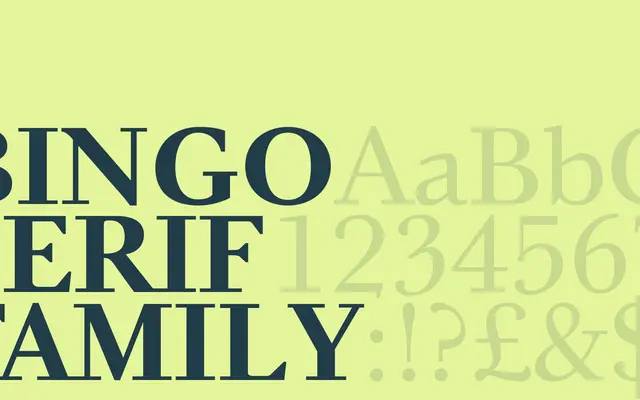
Bingo Serif
A display serif from Copenhagen foundry Playtype, built for editorial headlines and expressive typesetting.
Bingo Serif carries the character-driven sensibility that Playtype bring to their display work, suited to headline and poster contexts where personality matters. The page copy hints at a theatrical quality, suggesting the design has presence and a distinct voice. Details on weights and full character set are limited from available material.
The name and the sparse page copy suggest a display-oriented serif with expressive character, likely designed for editorial or headline use rather than body text.